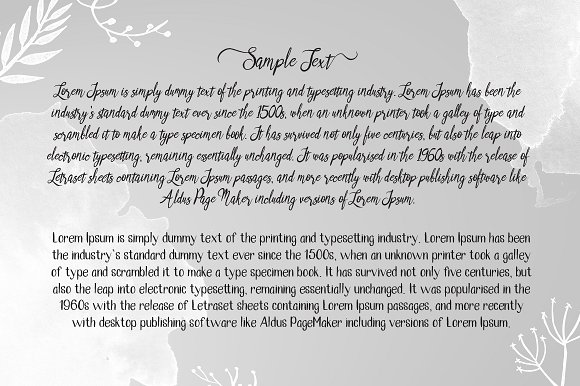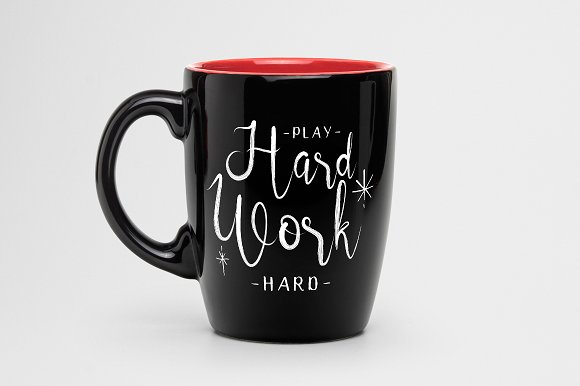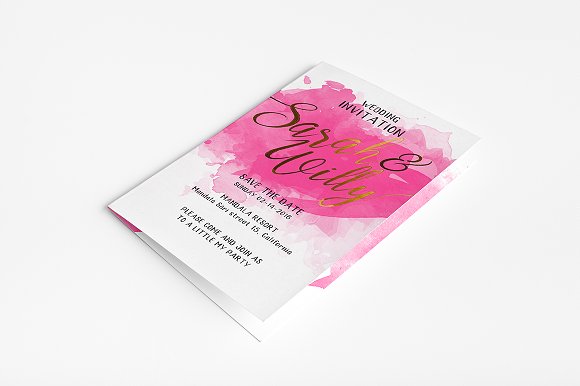
Vroffloow Font
About Vroffloow Font
Vroffloow is a brushing style, modern script & sans serif typeface. The characters are elegant and unique. Perfect for those who like to create a elegant, fun design.